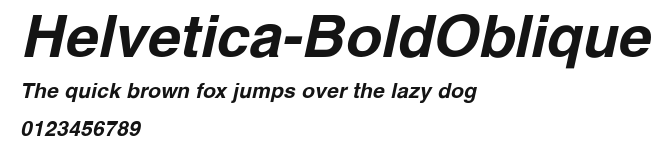
Helvetica-BoldOblique Preview
About Helvetica-BoldOblique.ttf
Helvetica-BoldOblique.ttf is a modern, elegant sans-serif font designed for ultimate readability and visual harmony. Perfect for branding, headlines, web design, and print materials.